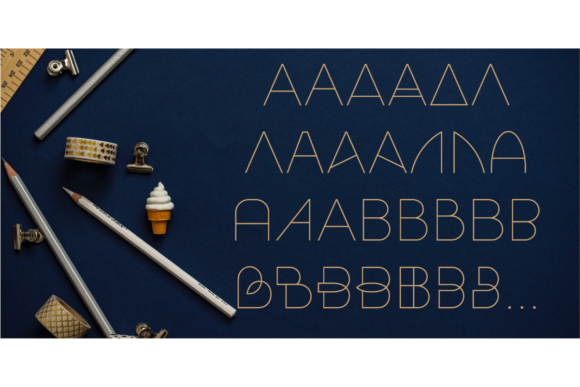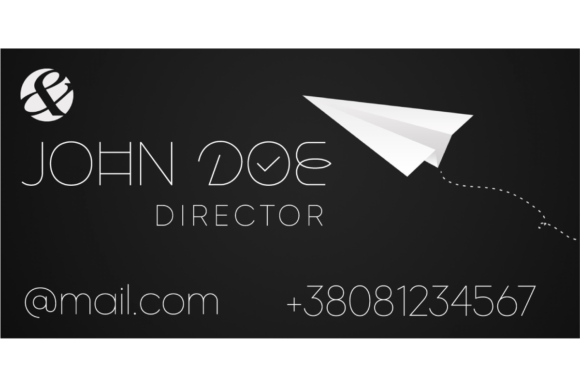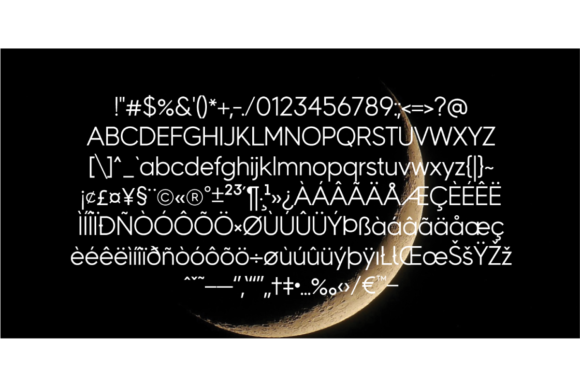
Introduction to Riveruta Font
Riveruta is a thin lettered and simple sans serif font.
Key Features of Riveruta Font
Why Choose Riveruta Font?
Riveruta Font offers exceptional quality and versatility, making it a valuable addition to your design toolkit. Whether you’re creating for personal projects or commercial use, Riveruta Font delivers professional results.